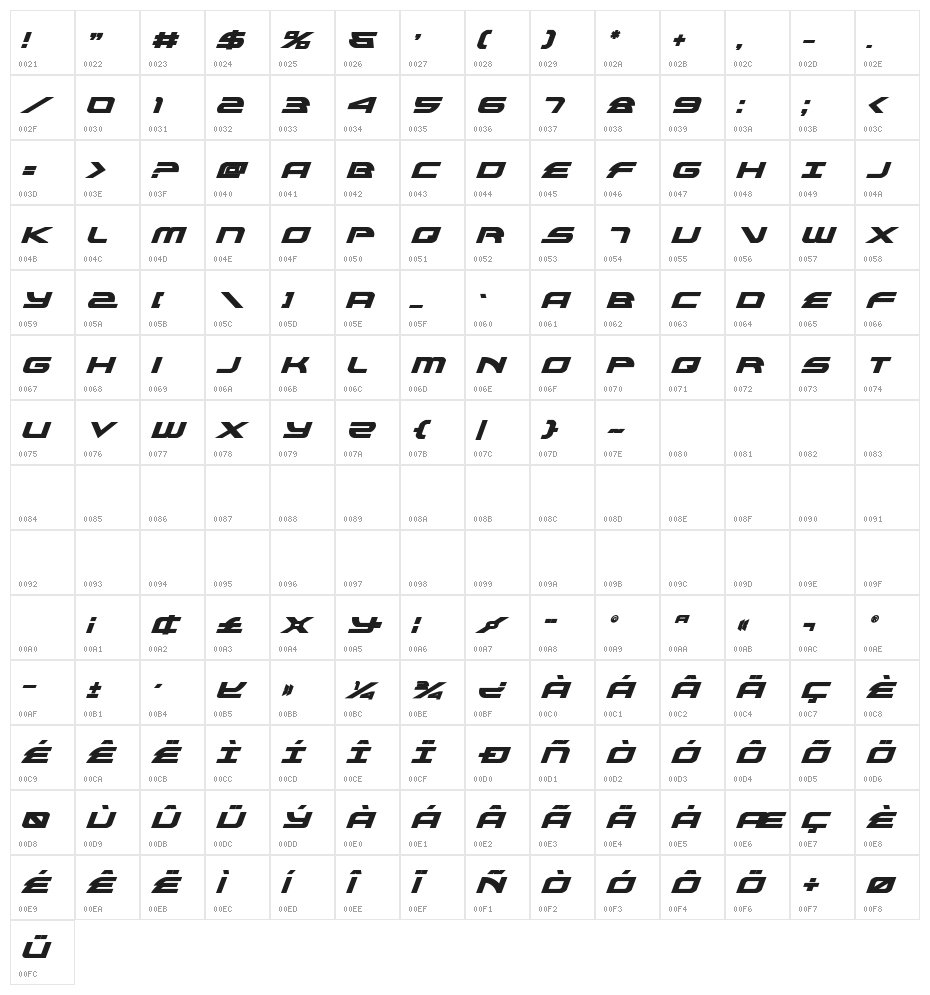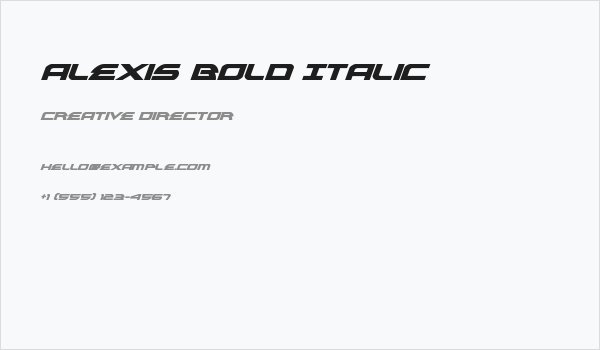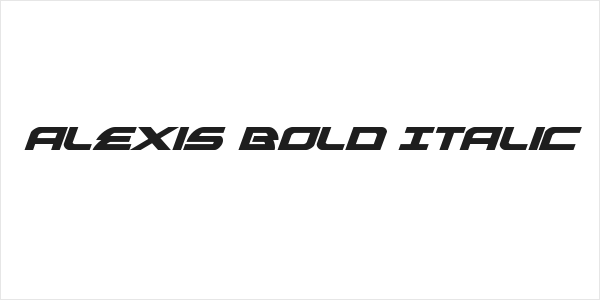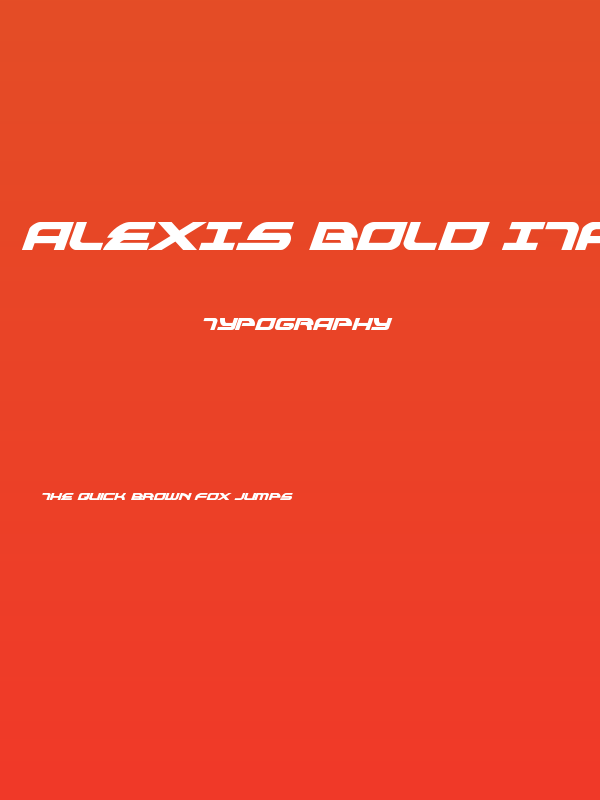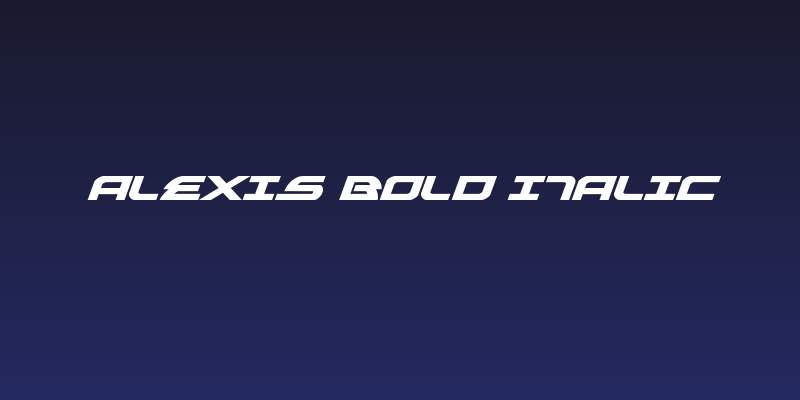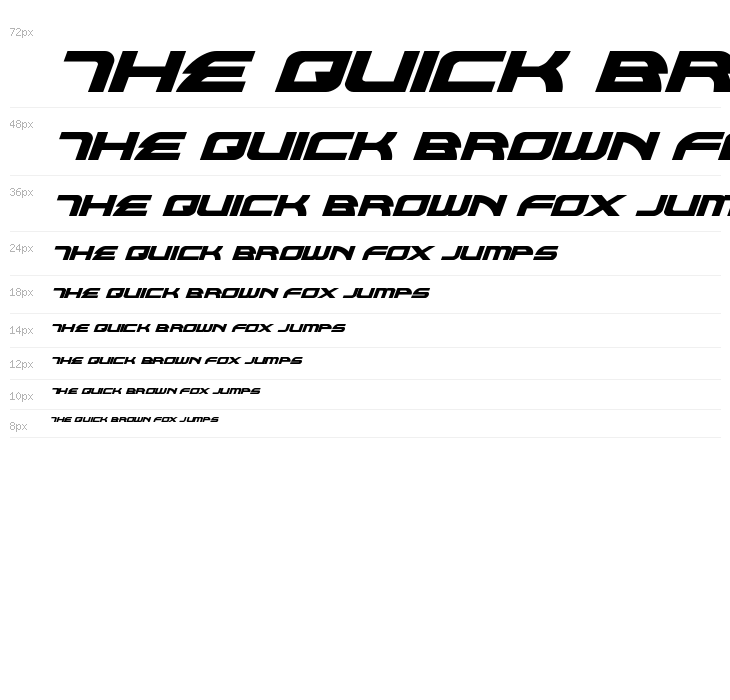
Alexis Bold Italic Font
Alexis Bold Italic Description
This font features a bold and italicized style with a futuristic and dynamic appearance. The characters are angular and slightly slanted, giving a sense of motion and energy. The uppercase and lowercase letters maintain a consistent design, with sharp edges and a modern aesthetic. The numbers and special characters follow the same stylistic approach, ensuring uniformity across all glyphs. The font's bold weight and italic slant make it suitable for attention-grabbing designs.
| Proposed Projects | Ideal for sci-fi themed projects, video game titles, tech branding, and modern advertising campaigns. |